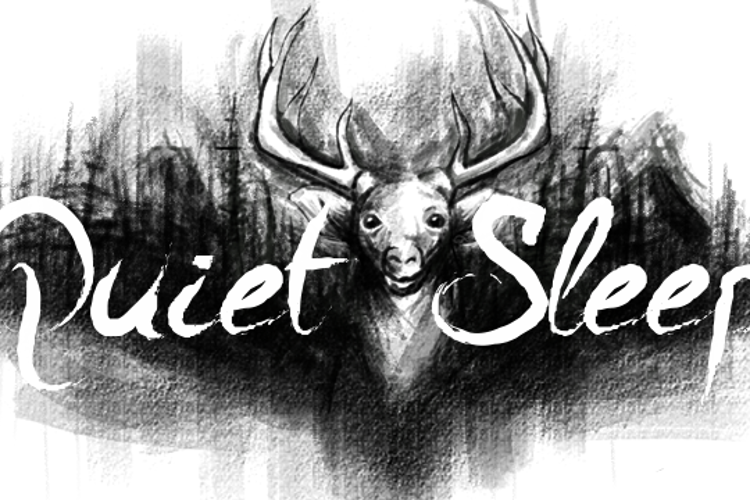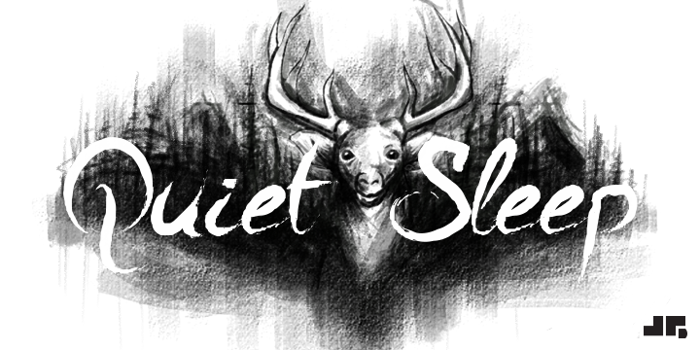
A Quiet Sleep Font
A brush/ink style font for all things organic, horrific, or toxic if you like.
almost 12 years agoLove this! Pretty or scary font that can be used in many ways. The picture of the deer is great. (: